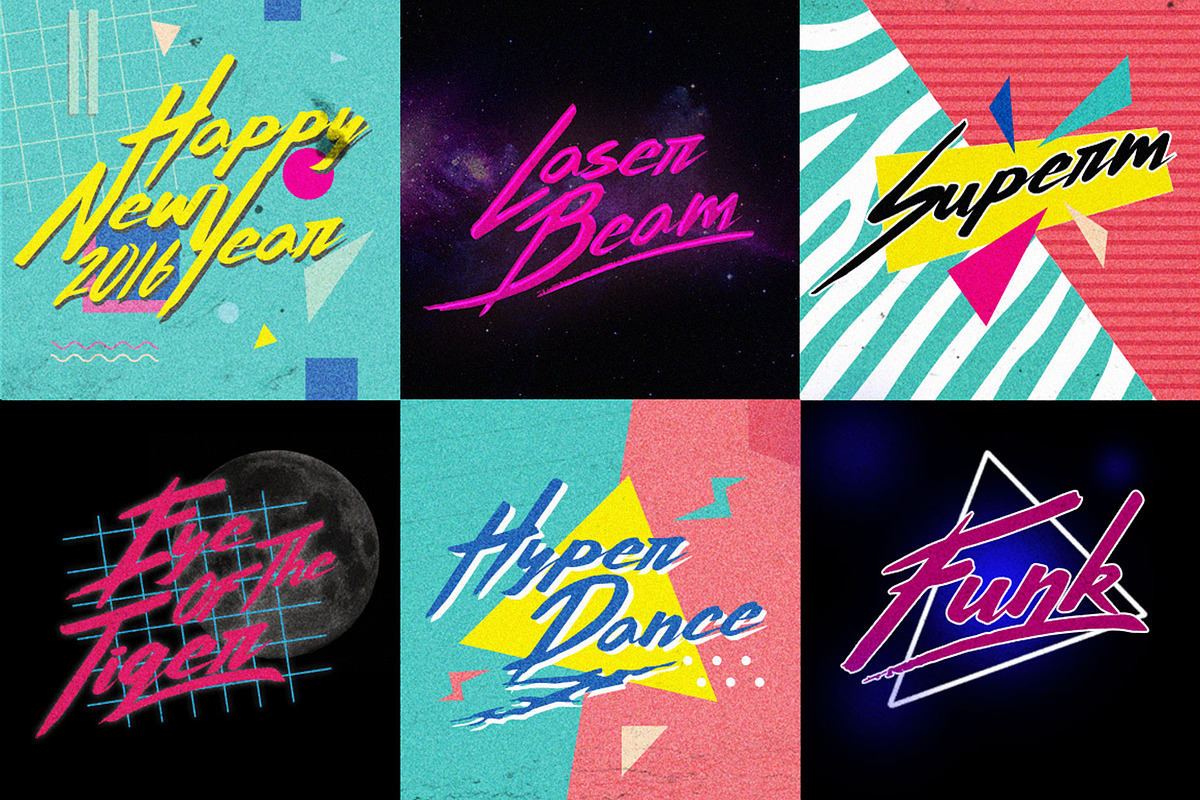
Thunderstorm Font
Thunderstorm is a hand-made brush typeface inspired by 80s-90s music, retro, disco, grunge, and pop culture. Uses for posters, logos, clothing, books, invitations, etc. This font has a really nice flow so you use it in a large text if you want to give them a touch of personality. It can be used on social media content, for branding or packaging.